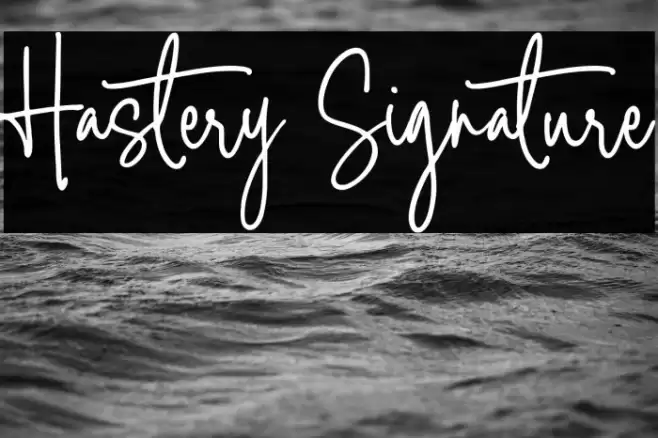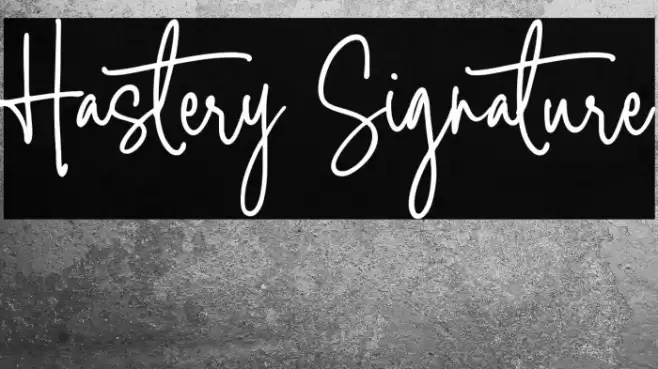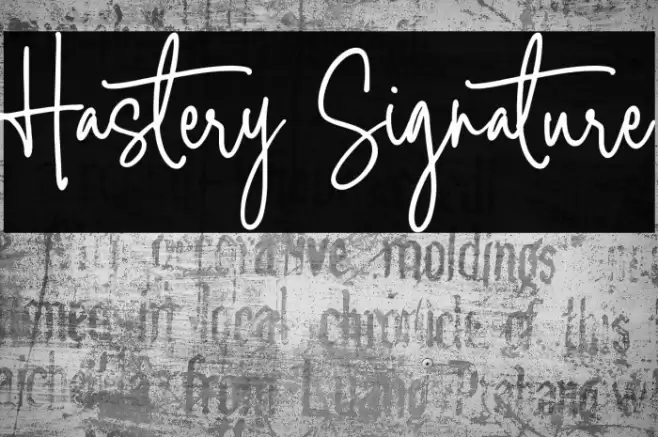
Hastery Signature Font
Hastery Signature Description
This font exudes a casual yet sophisticated handwritten style, characterized by its fluid, cursive strokes that mimic a natural signature. The uppercase letters are tall and slightly narrow, with a playful loop and swirl that adds a touch of elegance. The lowercase letters maintain a consistent flow, connecting smoothly to create a seamless script. Numbers and special characters follow the same handwritten aesthetic, ensuring a cohesive look throughout. The overall appearance is dynamic and lively, making it ideal for projects that require a personal touch.
A fluid, cursive handwritten font with a natural signature style from Uncategorized fonts.
- Proposed Projects: Ideal for personal branding, invitations, greeting cards, and logo design.
- Use Case: Logos, Invitations, Personal branding